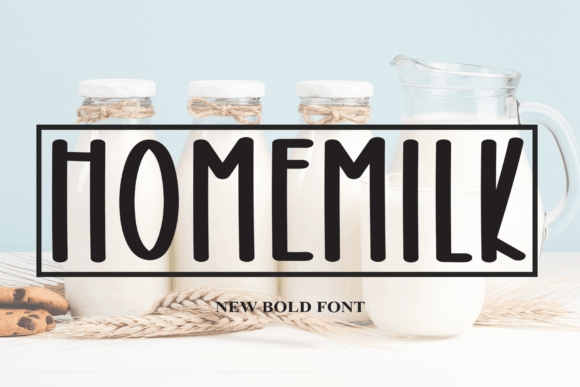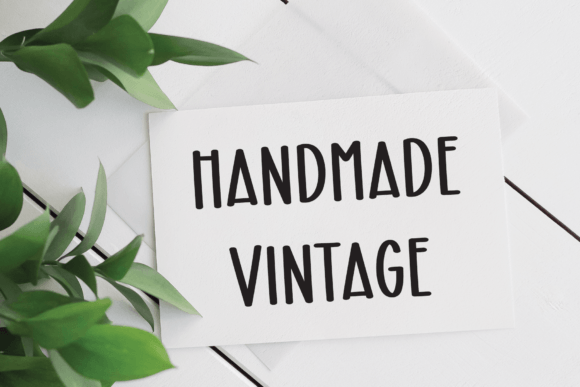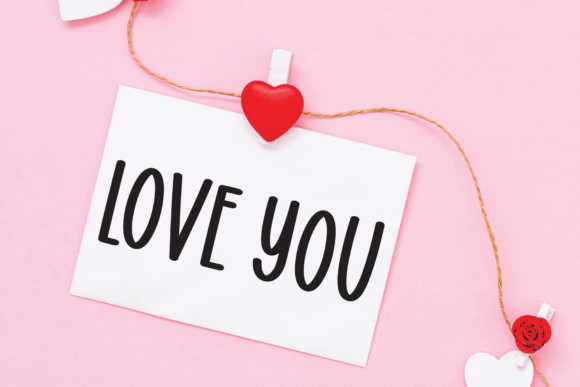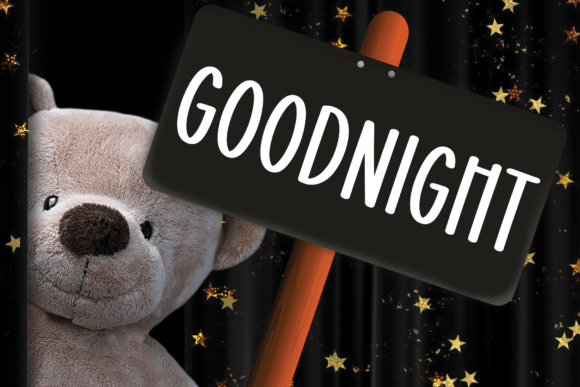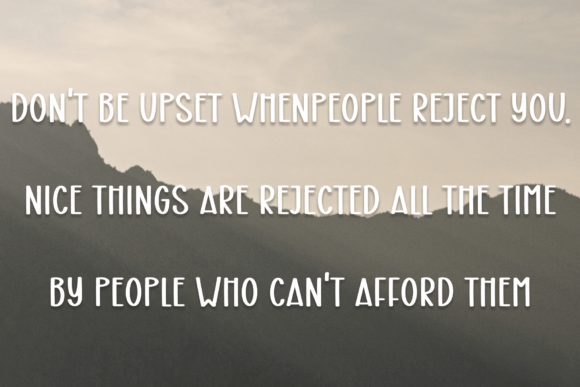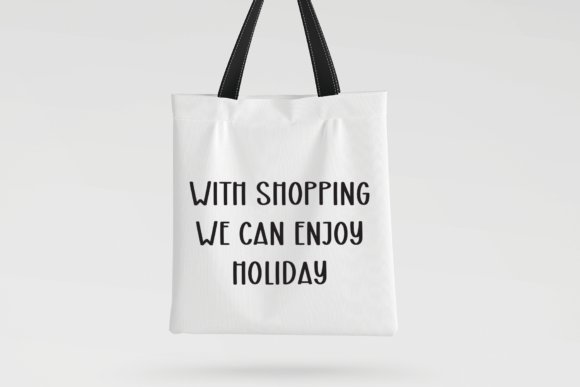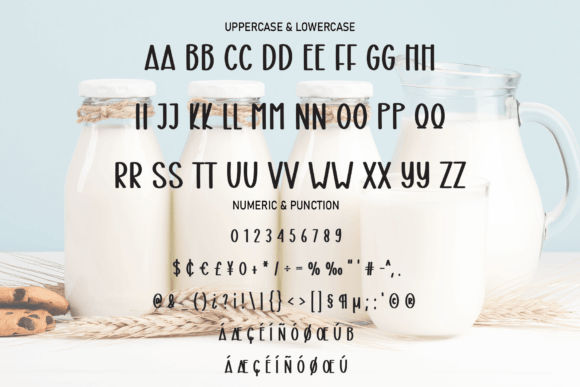
Discover the Ultimate Trendy Font for Your Next Creative Project
Have you ever stared at a blank page, blank screen, or blank canvas, desperately searching for the perfect font to bring your idea to life? We’ve all been there. The perfect font can make or break the aesthetic of your project, and that’s exactly where the Homemilk Font comes in.
This bold, all-caps display font is the perfect combination of trendy and timeless, making it a valuable addition to any designer’s toolkit. Whether you’re crafting, designing digitally, creating presentations, or making greeting cards, the Homemilk Font is sure to impress. Its versatility and unique style make it a must-have for designers looking to elevate their projects and stand out from the crowd.
Homemilk Font Key Features
- Font Family: Homemilk is a modern sans-serif font, designed to evoke a sense of warmth and approachability.
- Character Set: The font includes a comprehensive set of characters, including Latin, Cyrillic, and Greek alphabets, as well as punctuation and symbols.
- Unique Characteristics: Homemilk features a unique blend of geometric and organic elements, giving it a distinctive and recognizable look that sets it apart from other sans-serif fonts.
Homemilk Font Review
I’ve had the chance to dive into the “Homemilk Font” and I’m sharing my honest thoughts on what works and what doesn’t.
✨ One thing that stands out is the playful, hand-drawn feel of the font. It’s perfect for creating a whimsical atmosphere in branding, logos, and even digital products. The irregularities in the letters add a charming touch that’s sure to catch attention.
✨ Another strength of the font is its versatility. It can be used in a wide range of contexts, from children’s products to food labels, and it works surprisingly well in both print and digital formats.
- ⚠️ Limited legibility at small font sizes. The font can become difficult to read when used in body text or at very small sizes.
- ⚠️ May not be suitable for formal or professional contexts. The playful feel of the font can come across as unprofessional or immature in certain situations.
Overall, the “Homemilk Font” is a fun and creative choice for designers looking to add a touch of whimsy to their projects. While it has some limitations, it’s a great option for the right kind of project. Just be mindful of the font sizes and use it sparingly in formal contexts.
Tips for Getting the Most Out of Homemilk Font
Use Homemilk Font for designs that require a playful, handwritten feel.
Pair Homemilk Font with bold, sans-serif fonts for contrast and visual interest.
Experiment with different font sizes and styles to create unique and eye-catching designs.
Food and beverage branding
Children’s book illustrations and design
Alternatives to Homemilk Font for Designers
Great Vibes Font is a modern, elegant script font perfect for creating a sense of sophistication and luxury. It’s ideal for use in branding, packaging, and advertising materials where a high-end feel is desired.
Compared to Homemilk Font, Great Vibes Font has a more refined and polished appearance, making it suitable for formal and upscale applications. Homemilk Font, on the other hand, has a more playful and casual tone.
Carolyna Pro Font is a beautiful, hand-drawn script font that works well for creating a sense of warmth and personality. It’s perfect for use in invitations, social media graphics, and other materials where a friendly and approachable tone is desired.
Compared to Homemilk Font, Carolyna Pro Font has a more delicate and whimsical appearance, making it suitable for applications where a sense of playfulness is desired. Homemilk Font, while playful, has a more rustic and homespun feel.
The font is available in multiple weights, from Light to Bold, and includes a range of styles, such as Regular, Italic, and Bold Italic. The font’s metrics are optimized for digital use, ensuring crisp and clear rendering on various devices and screen resolutions.